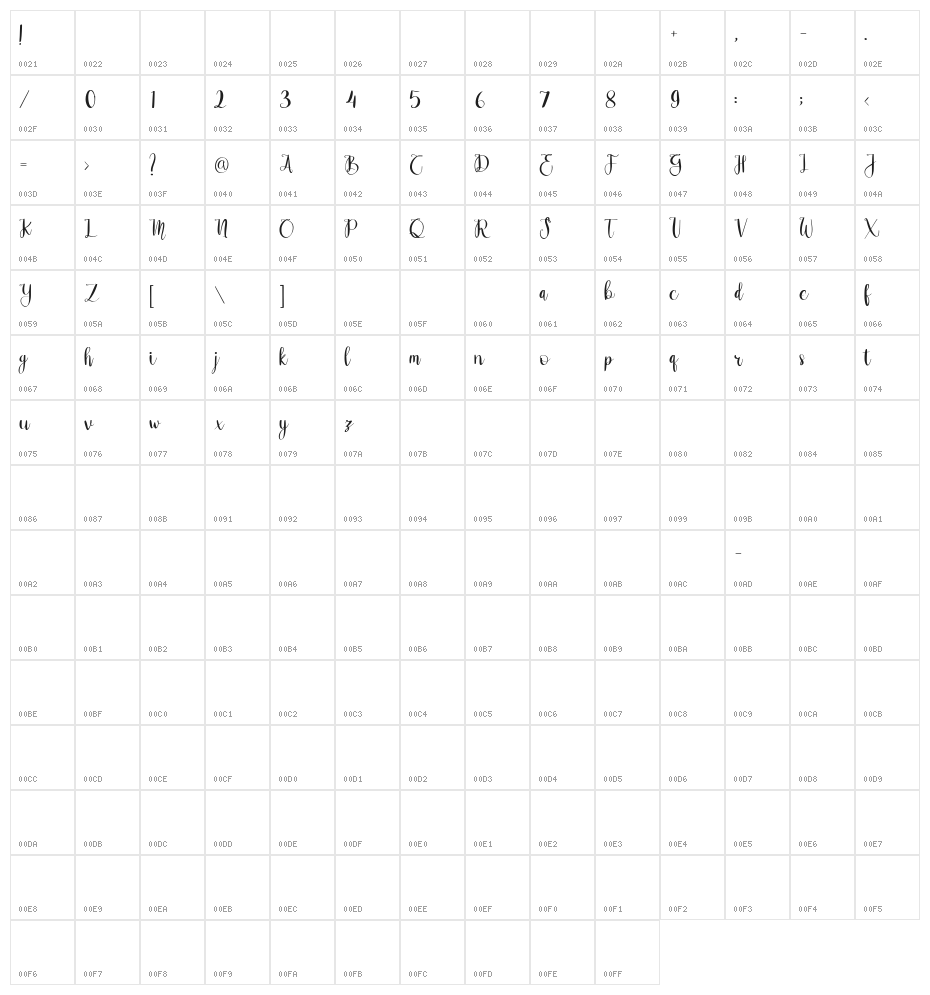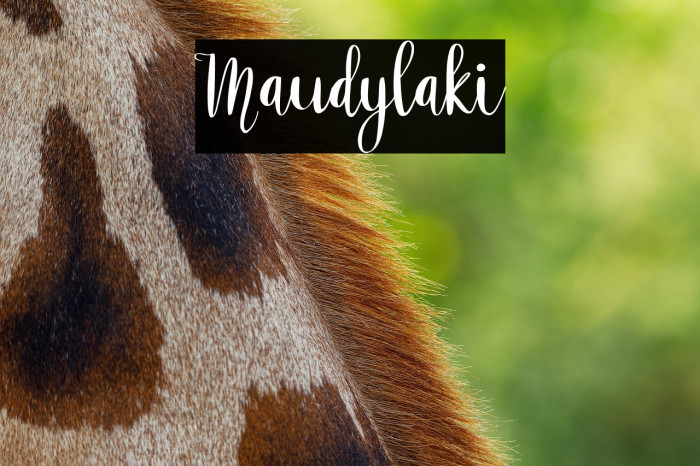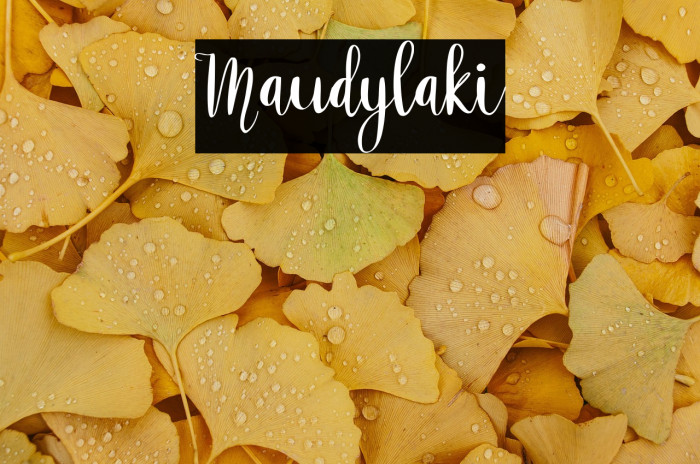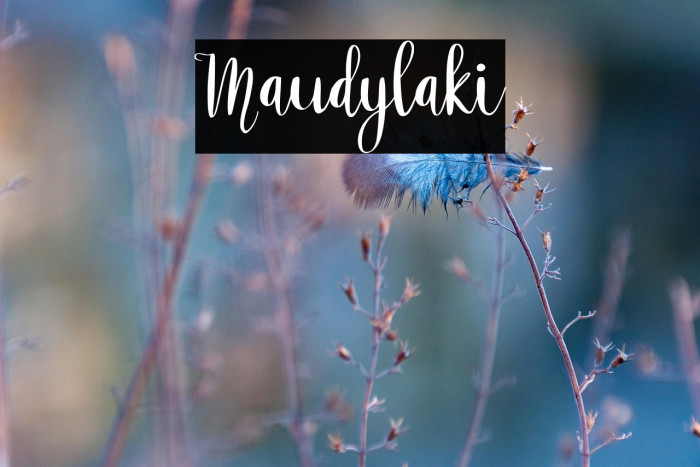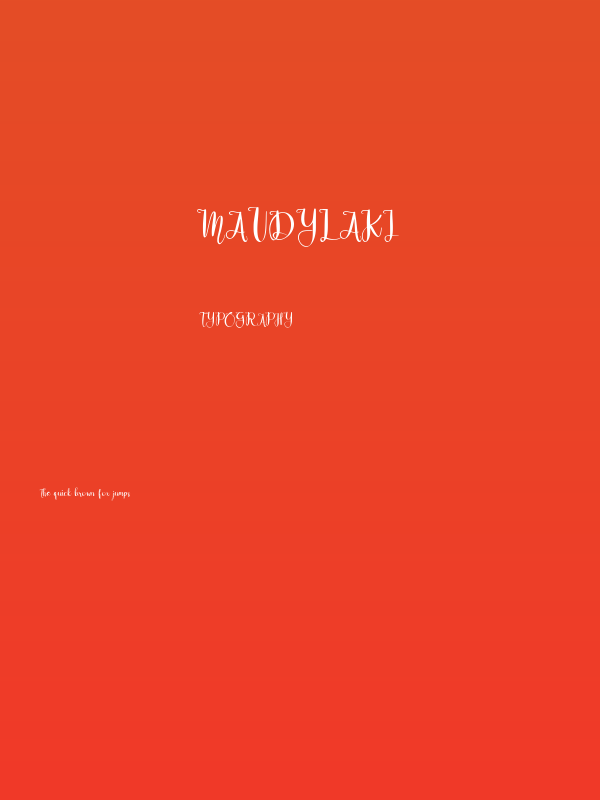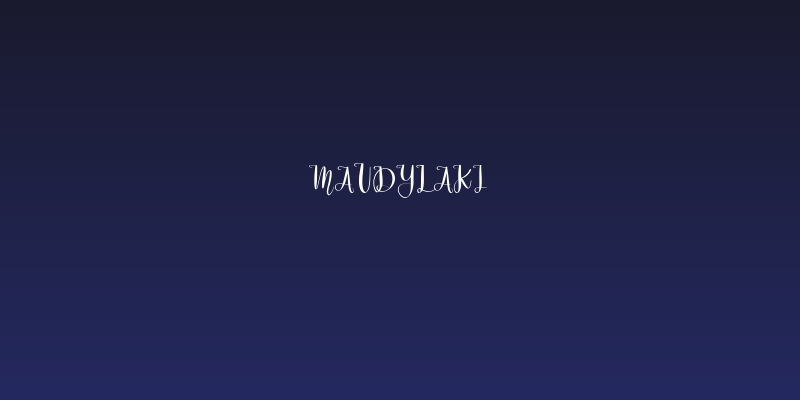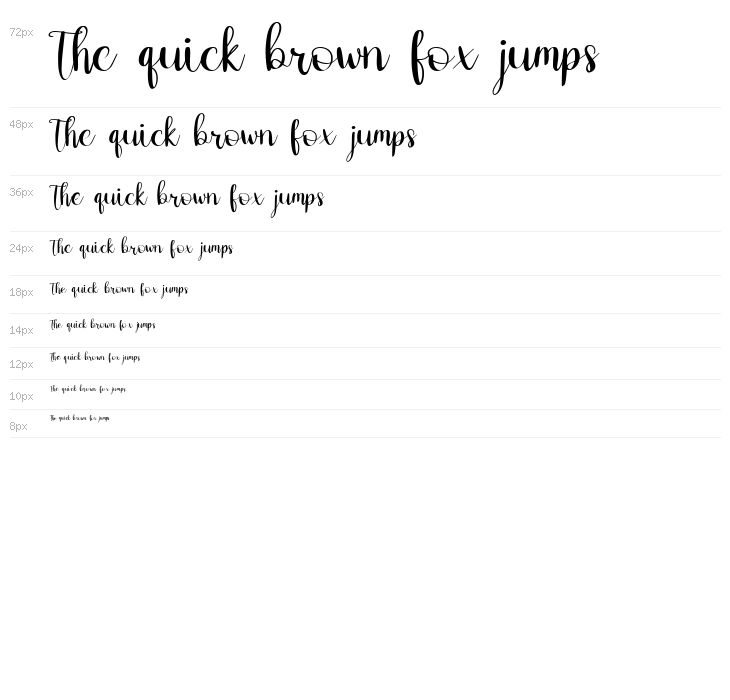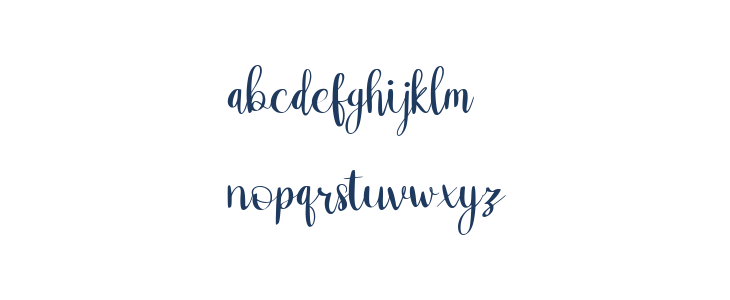
Maudylaki Font
Maudylaki Description
This font features an elegant and flowing script style, characterized by its ornate and decorative letterforms. The uppercase letters are particularly elaborate, with intricate swirls and loops that give a sense of sophistication and flair. The lowercase letters maintain a consistent style, with smooth curves and a slightly playful touch. Numerals are clear and bold, ensuring readability while maintaining the overall aesthetic. The special characters complement the font's style, adding versatility for various design needs.